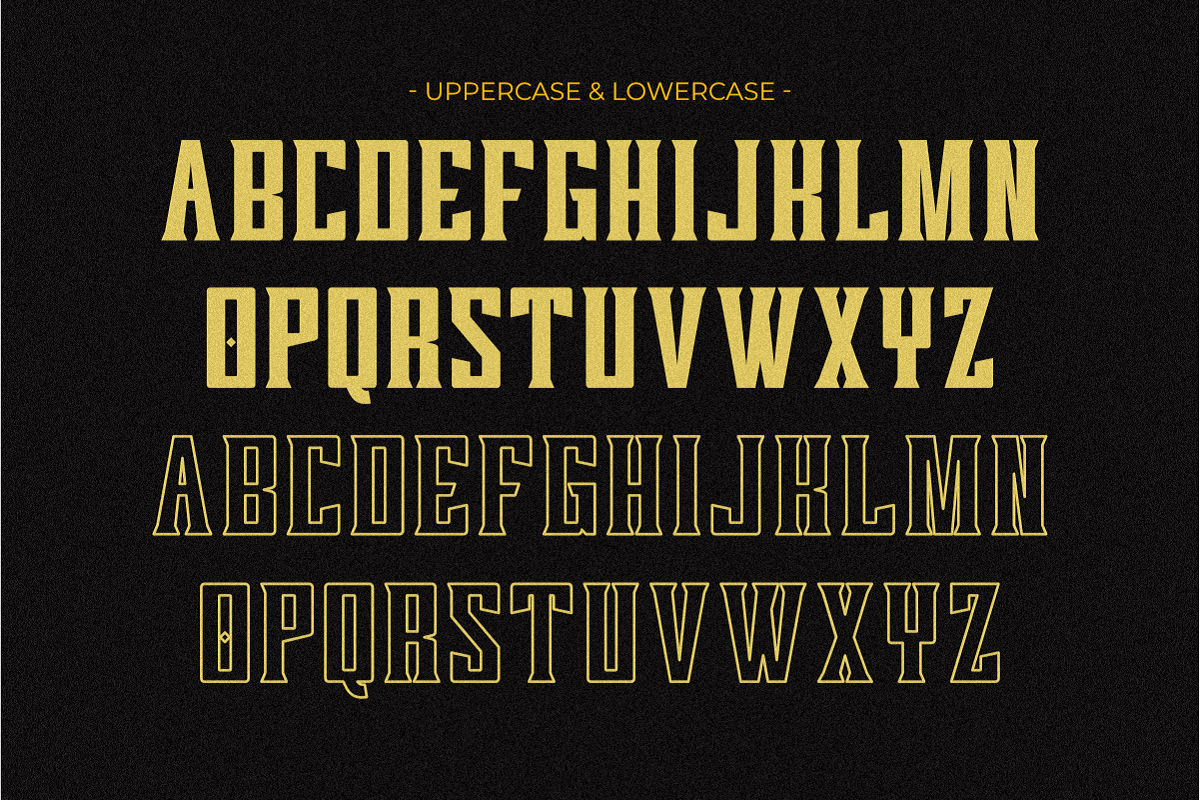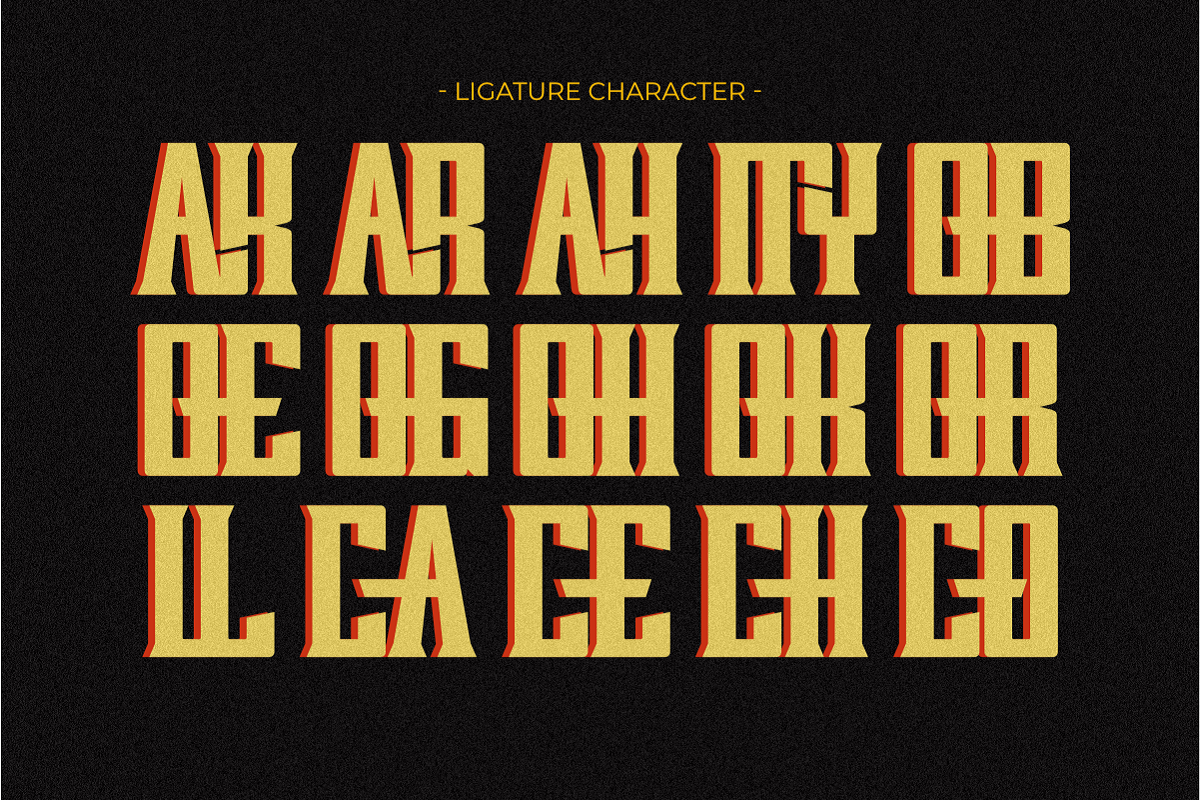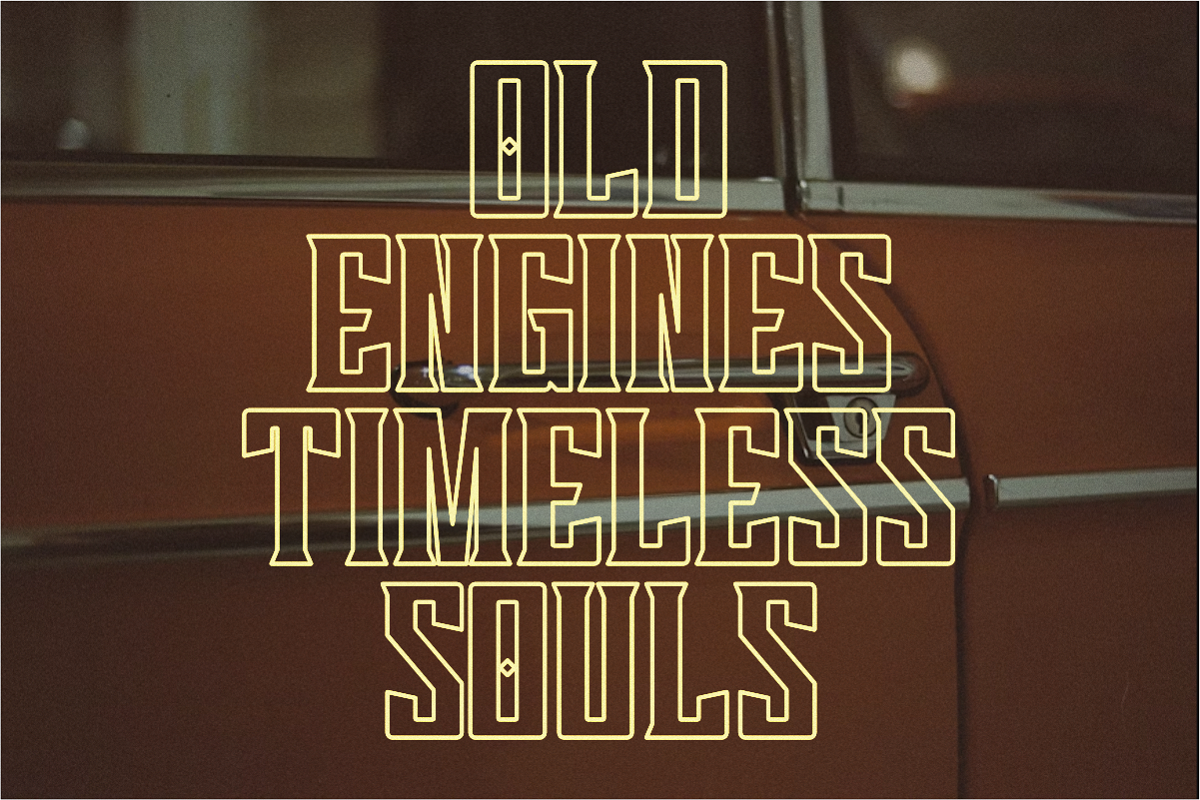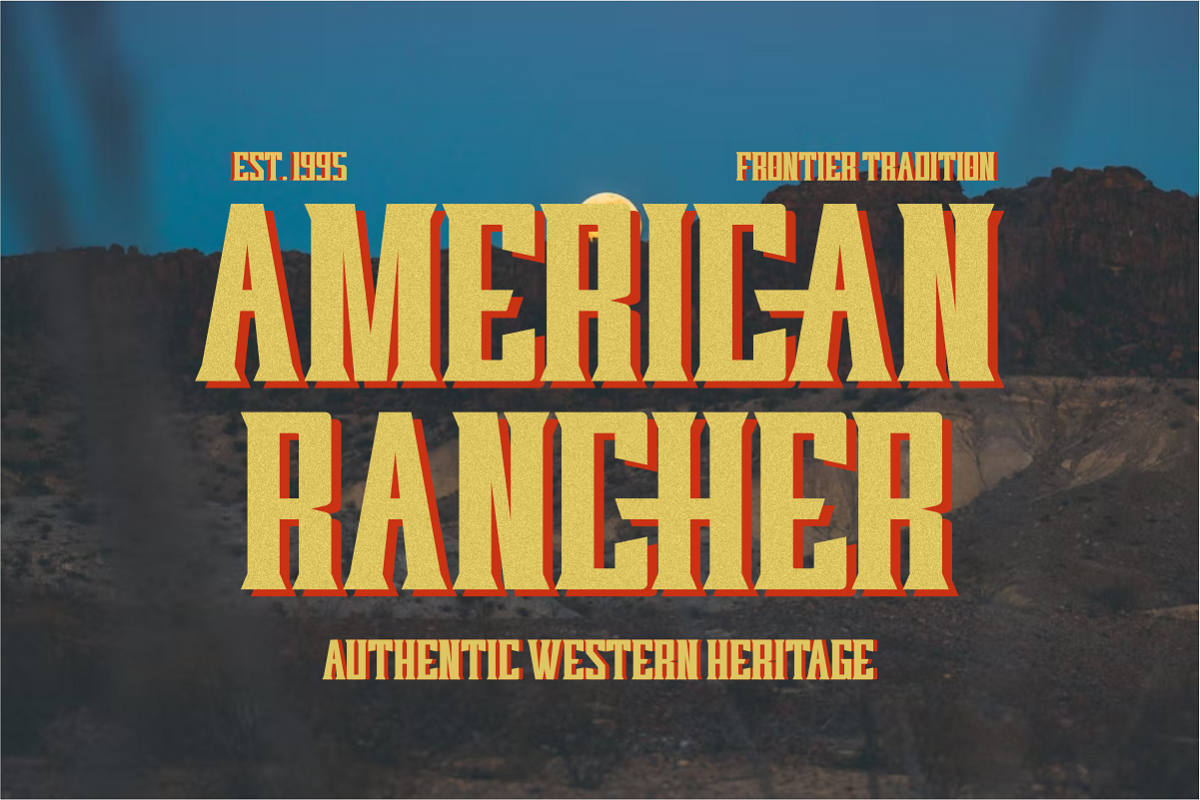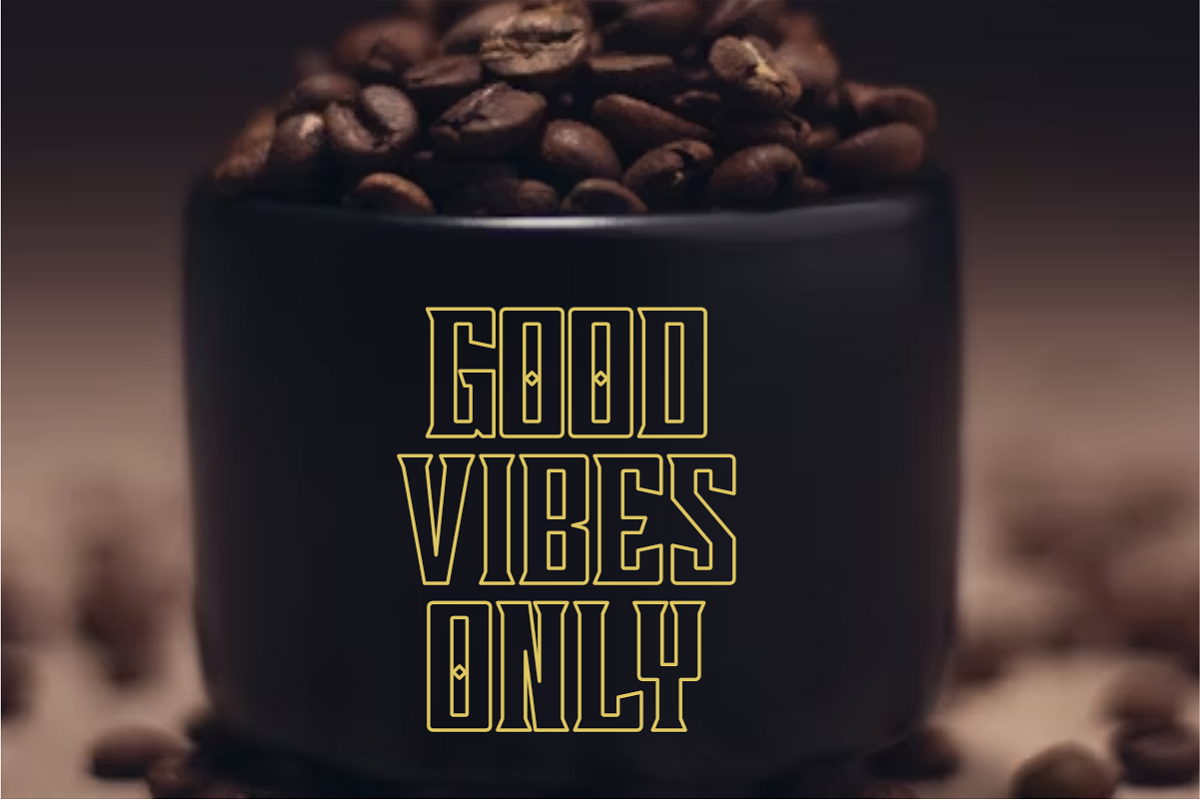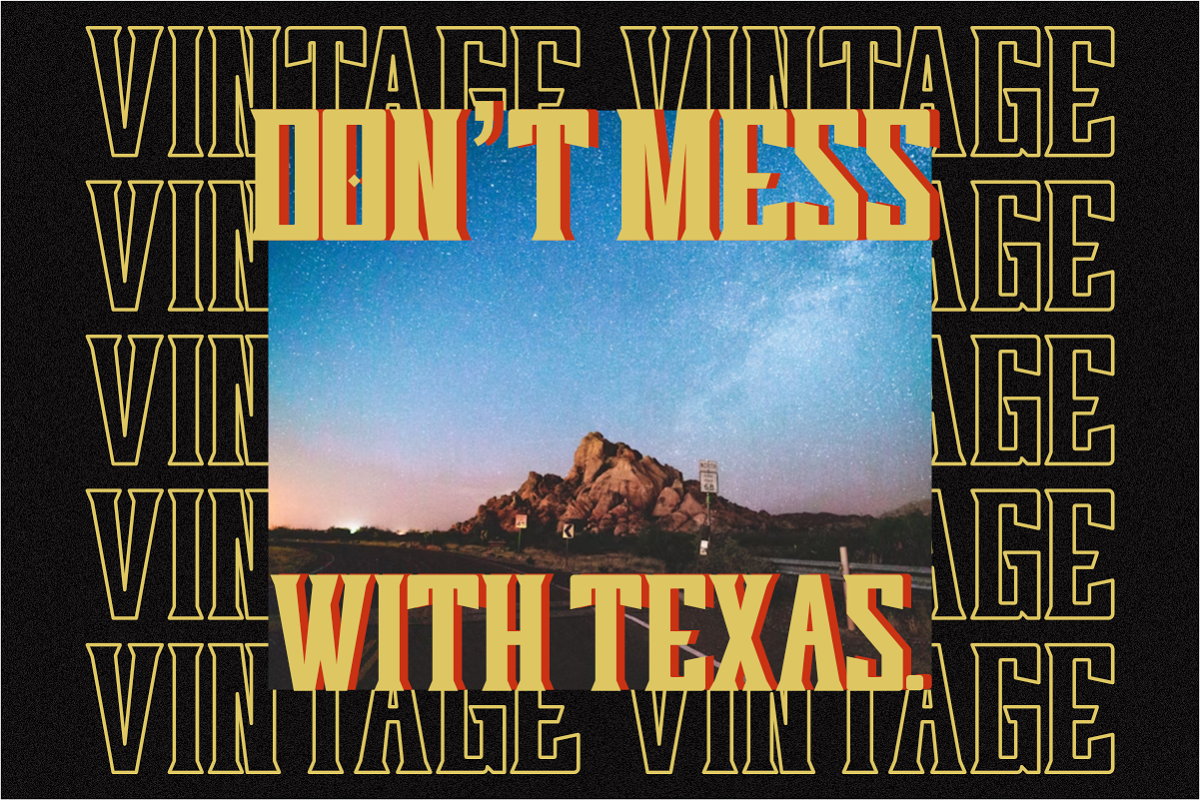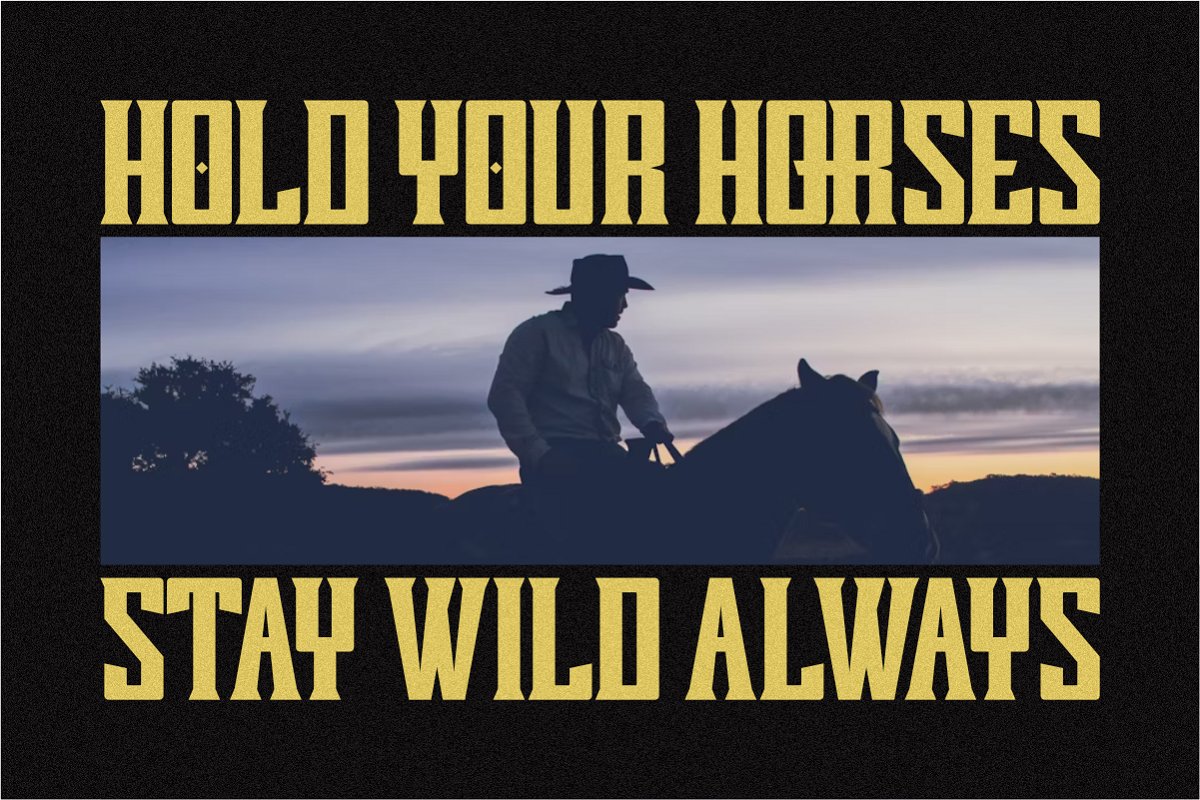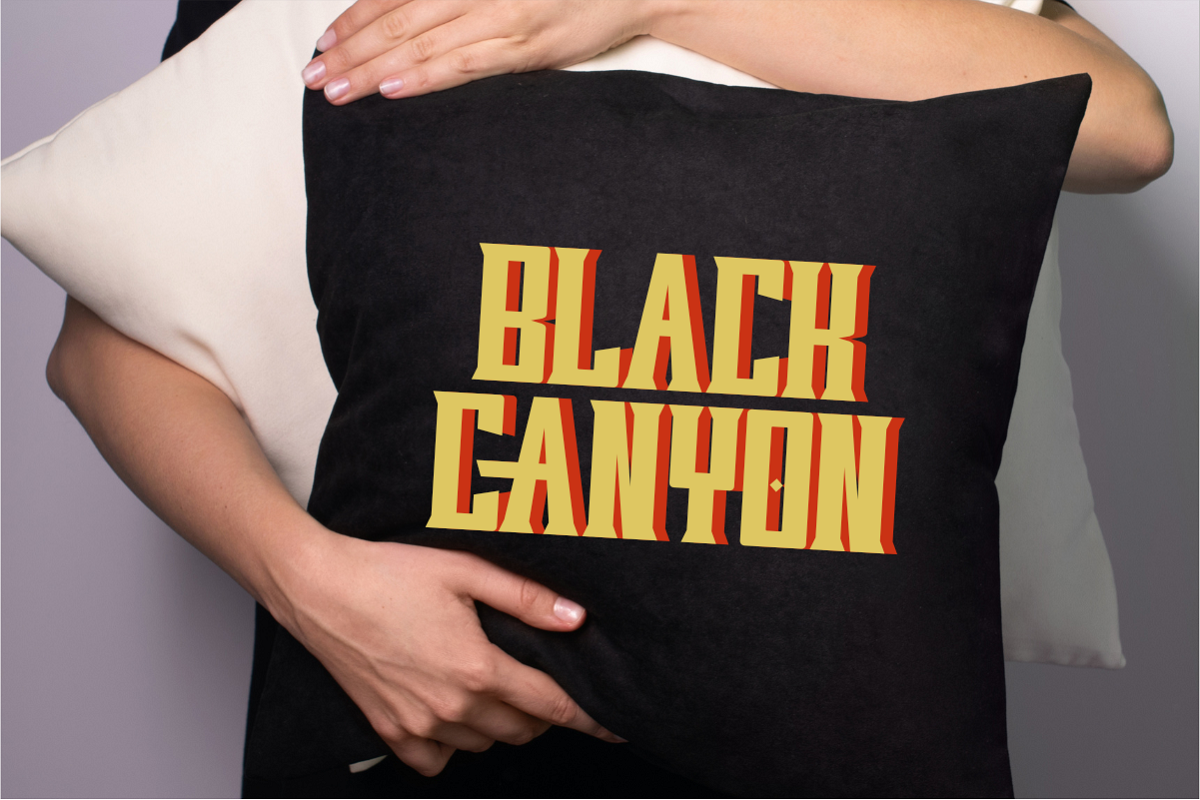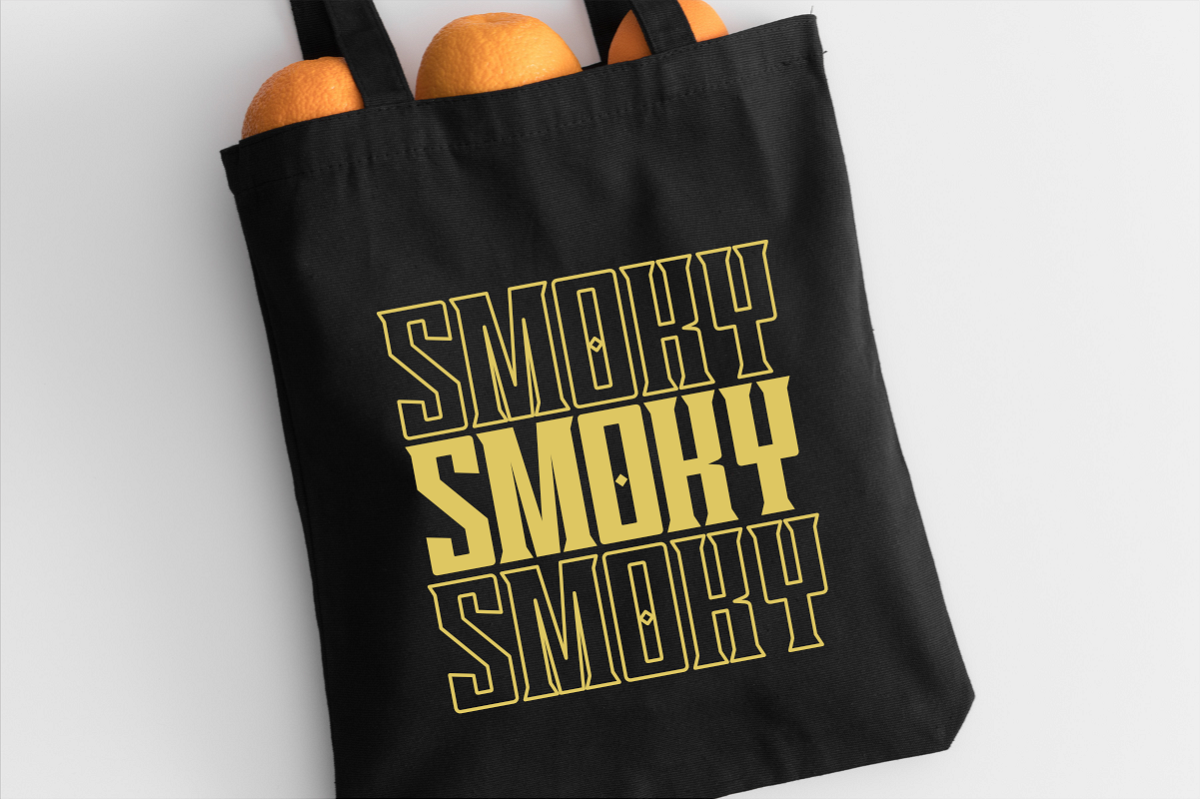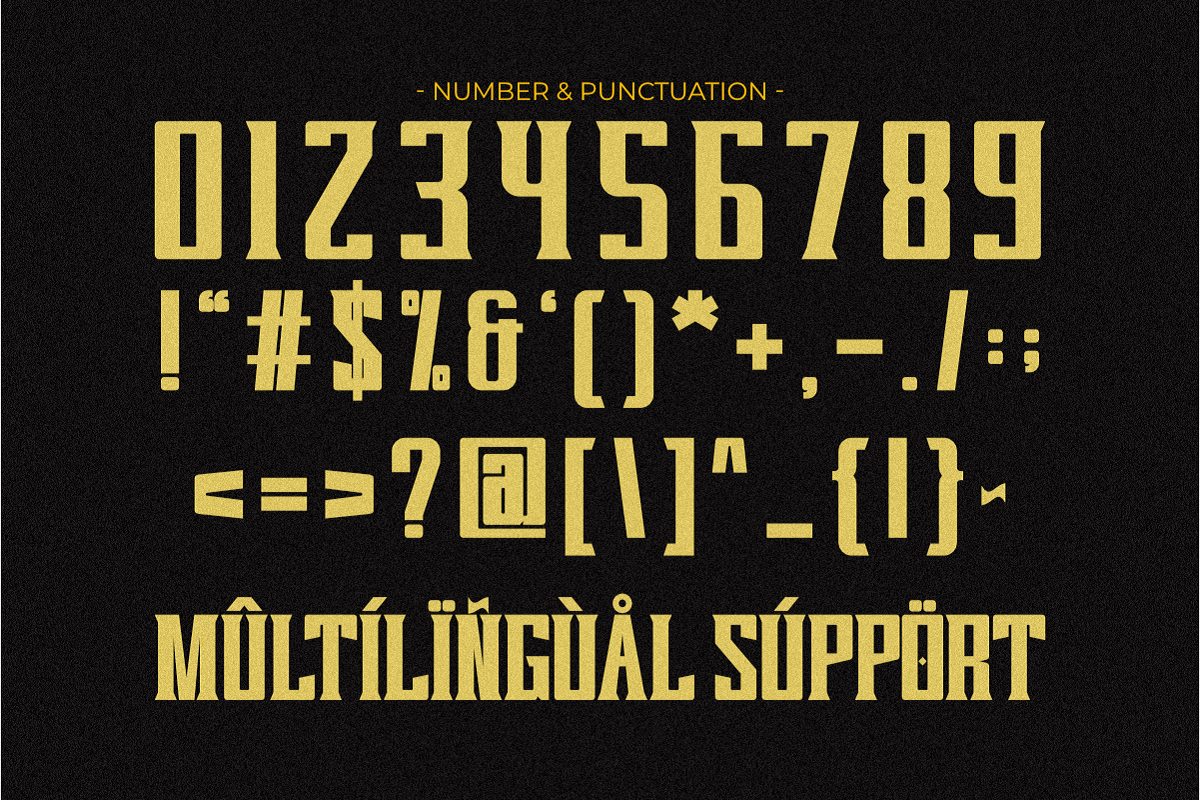
Senior Varsity - Vintage Slab Serif
Senior Varsity is a bold and powerful vintage slab serif font inspired by classic college, varsity, and sports typography. Featuring strong geometric shapes and sharp edges, it captures the authentic spirit of athletic and retro design. Perfect for logos, posters, team branding, apparel, and headline designs, this font adds a confident and energetic vibe to any project. Available in Regular and Outline styles, Senior Varsity offers great flexibility for creating bold visual combinations with a timeless vintage sports feel.